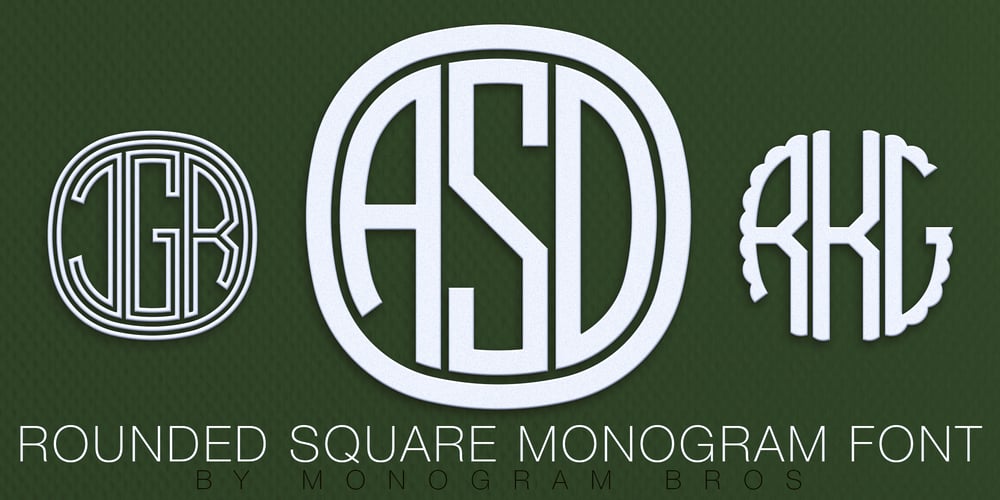
Rounded Square Monogram Font Family was designed by Andrei Isakau and published by MonogramBros. Rounded Square Monogram contains 3 styles and family package options. Rounded Square Monogram is a perfect shaped monogram font consisting of 78 letters and 1 basic frame. With just a single font file you will be able to create beautiful monograms in just a matter of minutes after the purchase! Rounded Square Font comes with font file in OTF format. It features all the modern advanced font features such as Contextual Alternates, effectively eliminating the need to use multiple separate font files for left, center and right letters.